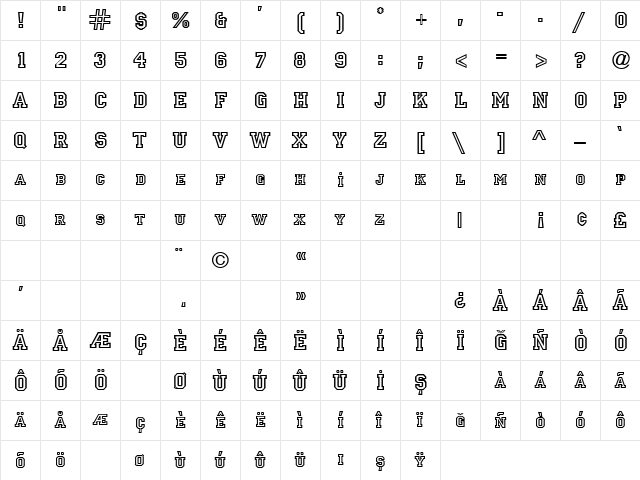
TR Princetown ITCNormal
Design Context for TR Princetown Typeface
TR Princetown is a composed and adaptable typeface that performs quietly and consistently across a wide range of design contexts.